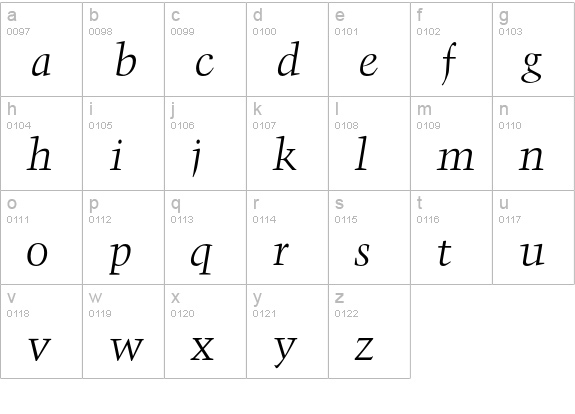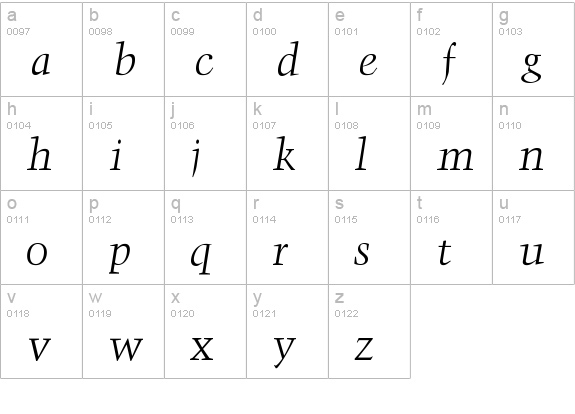
TriumphItalic is a remarkable font that exudes elegance and sophistication. With its delicate curves and graceful slant, this typeface is perfect for adding a touch of refinement to any design project. The letters flow seamlessly, creating a harmonious balance between classic and modern aesthetics. What sets TriumphItalic apart is not only its exquisite design but also its accessibility. This font is available for free download at FontsMarket.com, making it easily accessible to all designers and creatives. Whether you are working on a personal project or a commercial venture, TriumphItalic will add a touch of class without compromising readability. The versatility of TriumphItalic is another reason why it stands out among other fonts. Its timeless appeal makes it suitable for a wide range of applications, including branding, packaging, invitations, and editorial designs. With its stylish and refined appearance, TriumphItalic effortlessly captures attention and leaves a lasting impression. Furthermore, TriumphItalic is designed with precision and attention to detail, ensuring that each character is crafted with care. The clean lines and subtle curves make for a cohesive and visually pleasing aesthetic, while the italicized style adds a touch of sophistication and elegance. Whether you are a professional designer or an aspiring artist, TriumphItalic is a font that will enhance your creative endeavors. Its free availability on FontsMarket.com allows you to experiment and explore its potential without any limitations. So, don't miss the opportunity to elevate your designs with TriumphItalic, a font that effortlessly combines classic beauty with modern sensibilities.